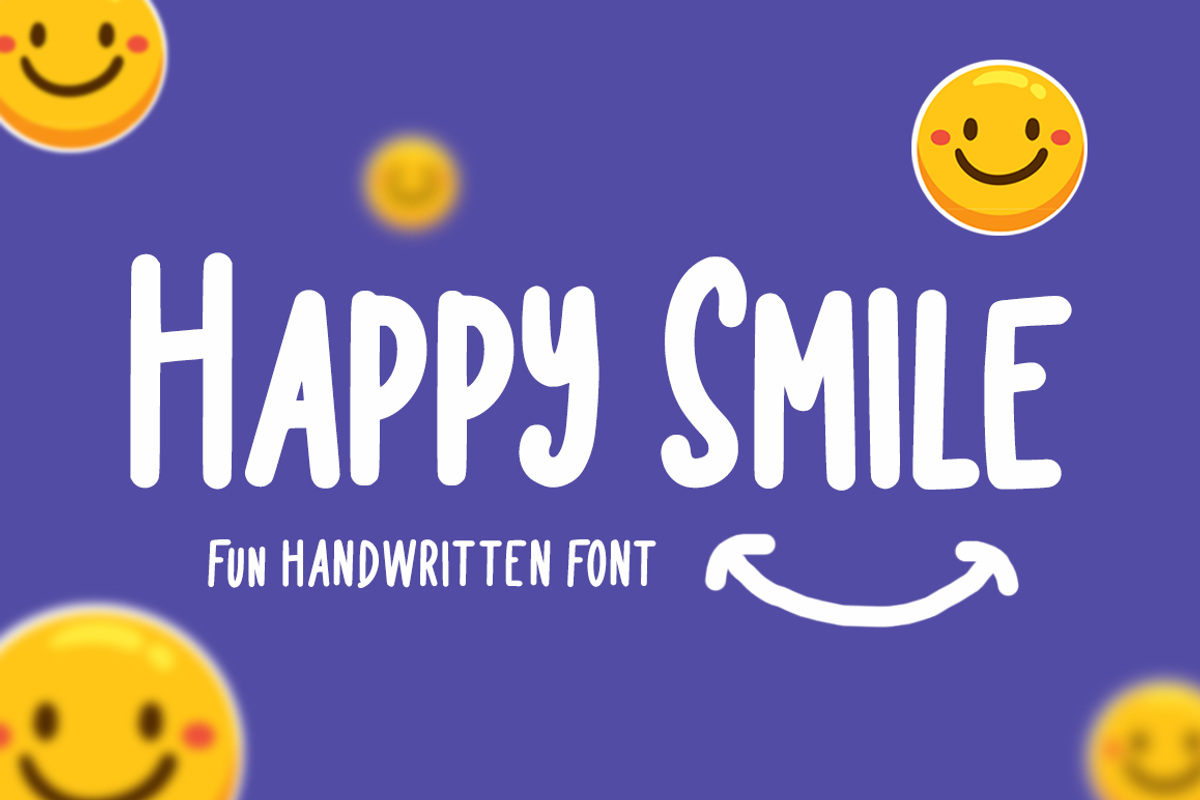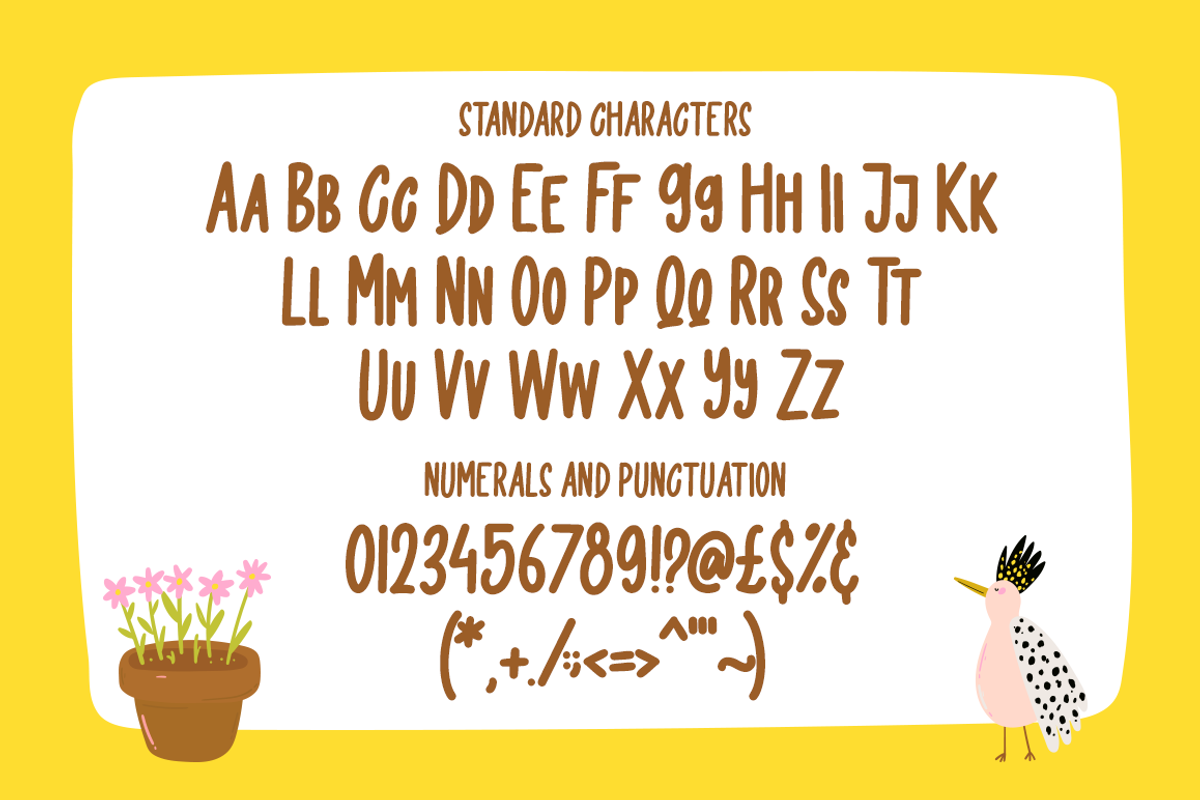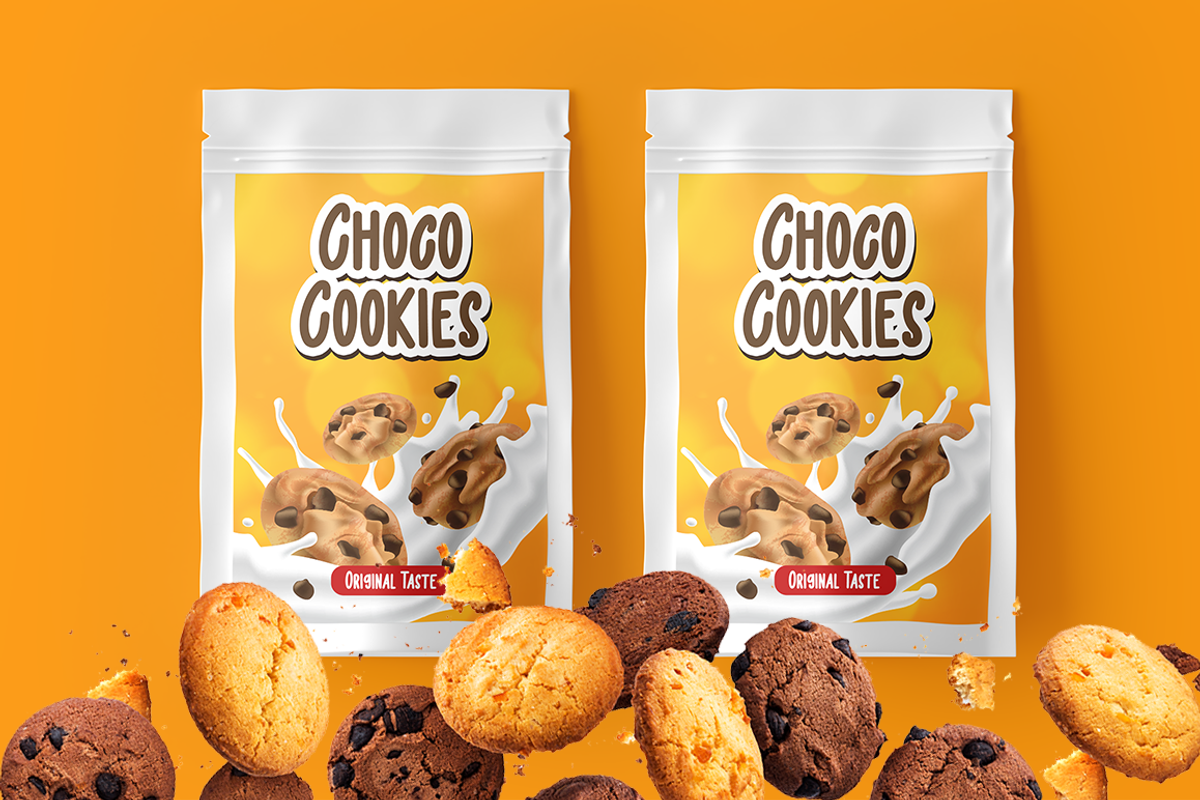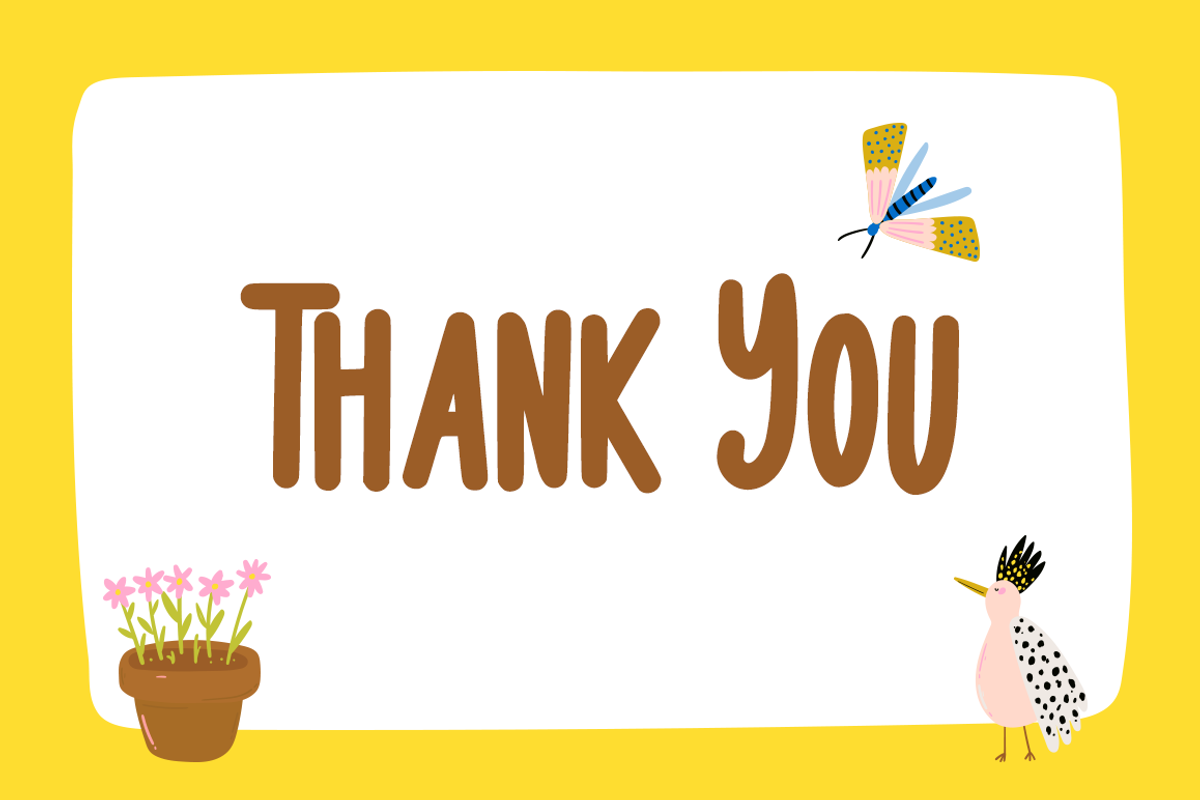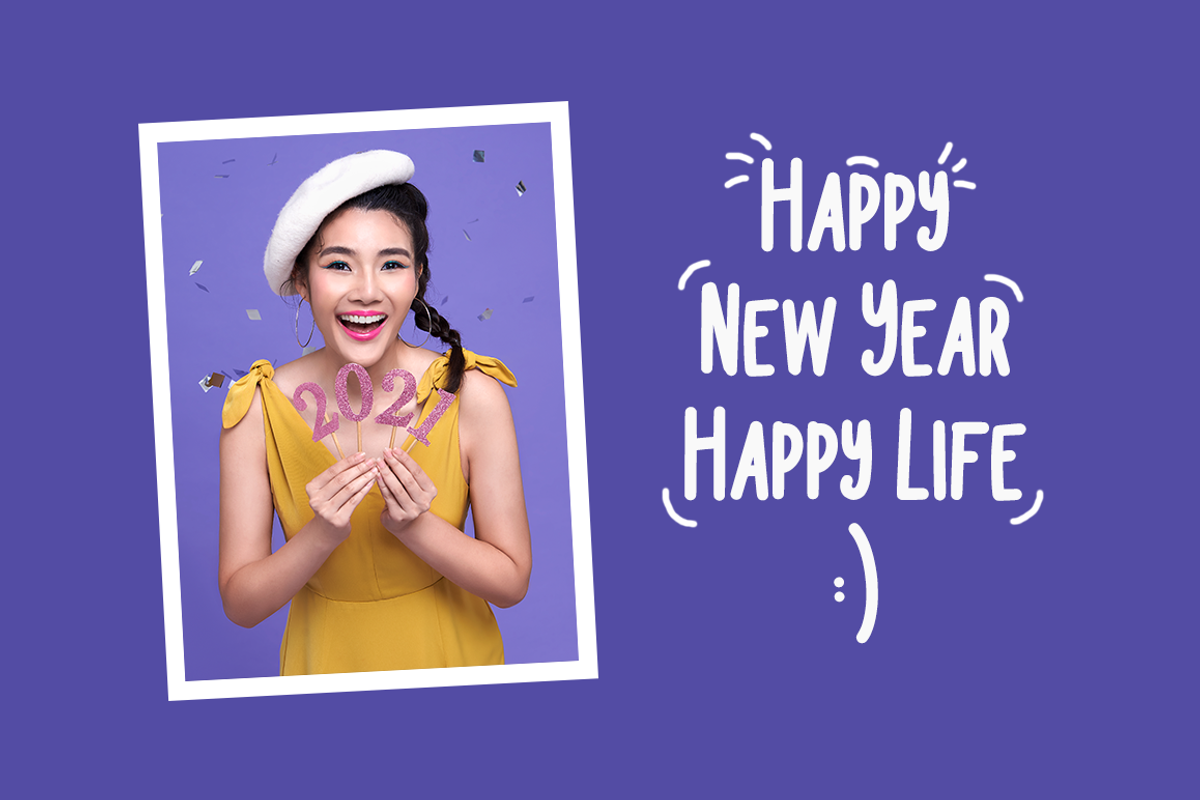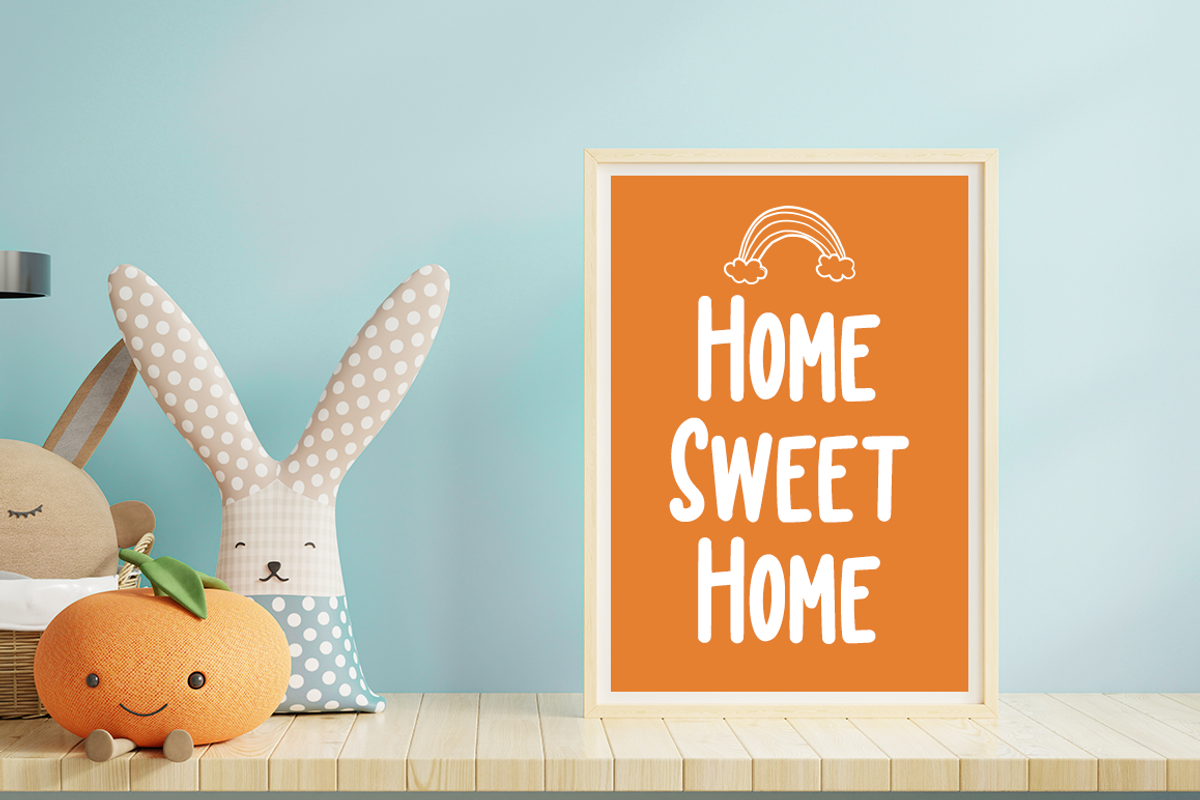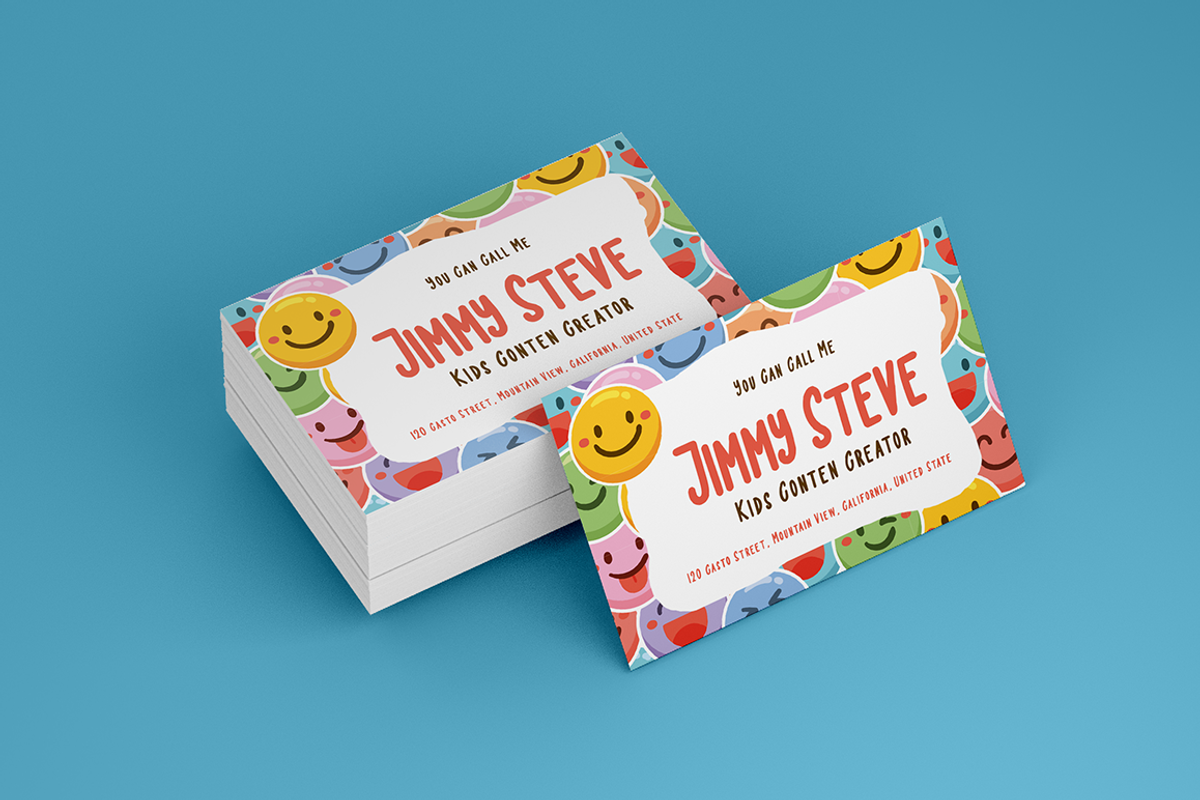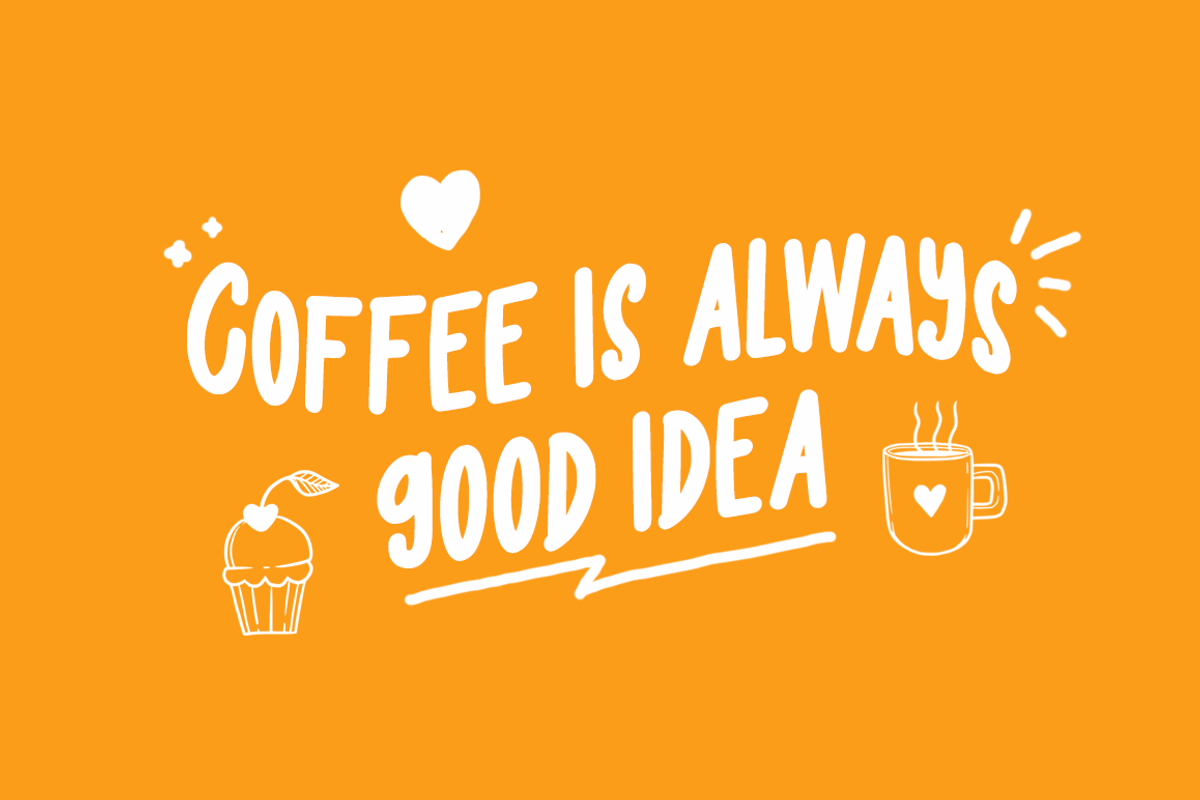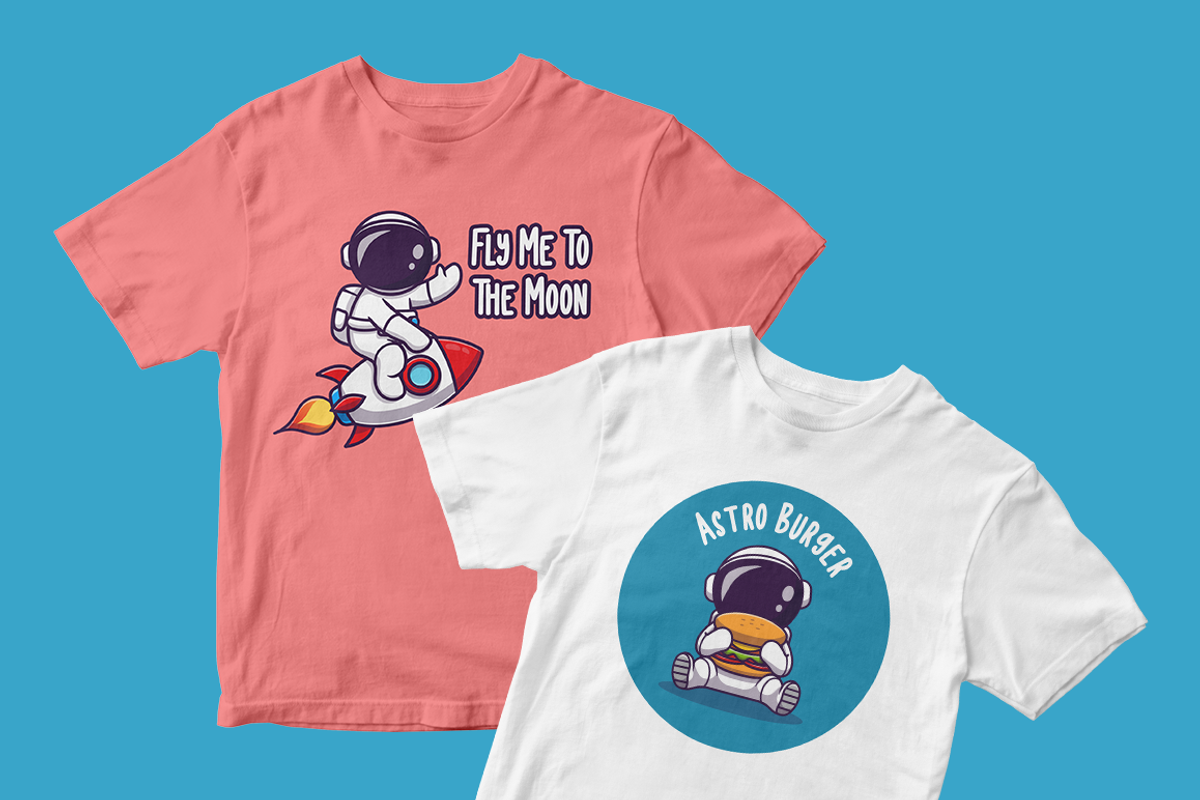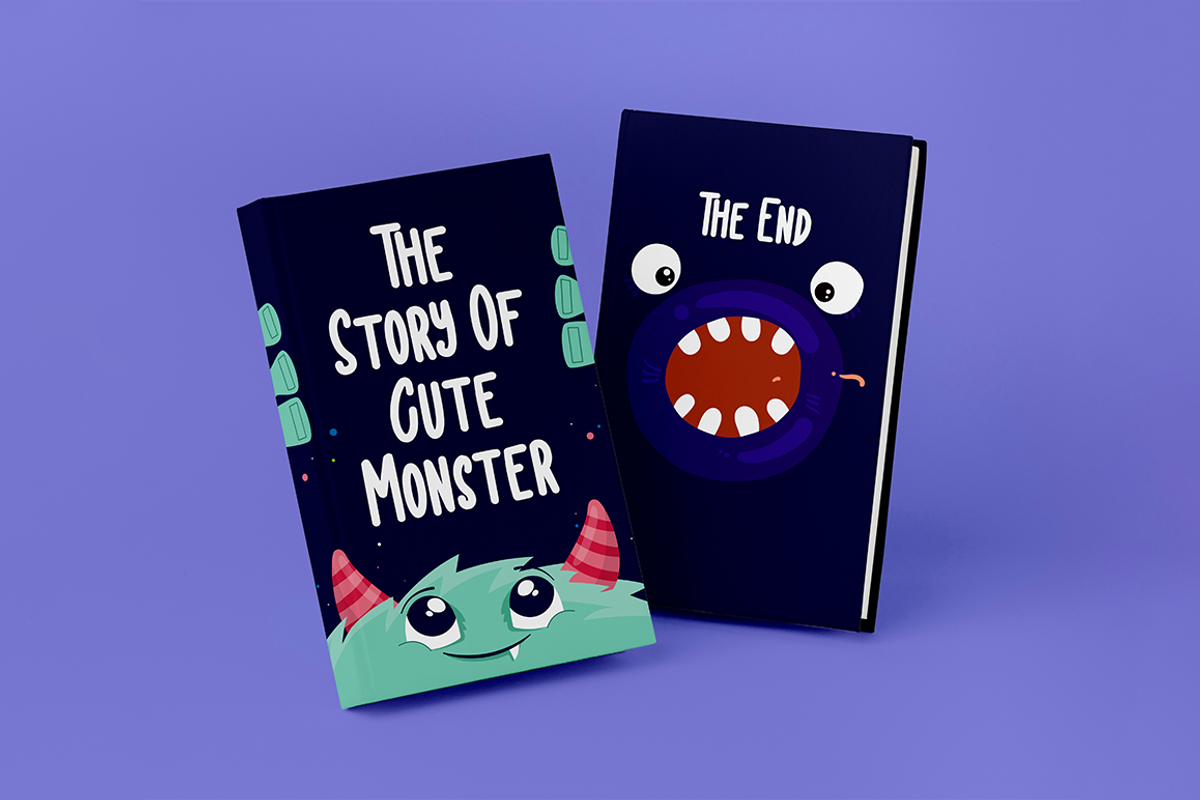
Happy Smile Fun Handwritten Font
Happy Smile is a magical display font carefully created with a touch of elegance. Fall in love with its authentic feel and use it to create gorgeous wedding invitations, beautiful stationary art, eye-catching social media posts, and cute greeting cards.